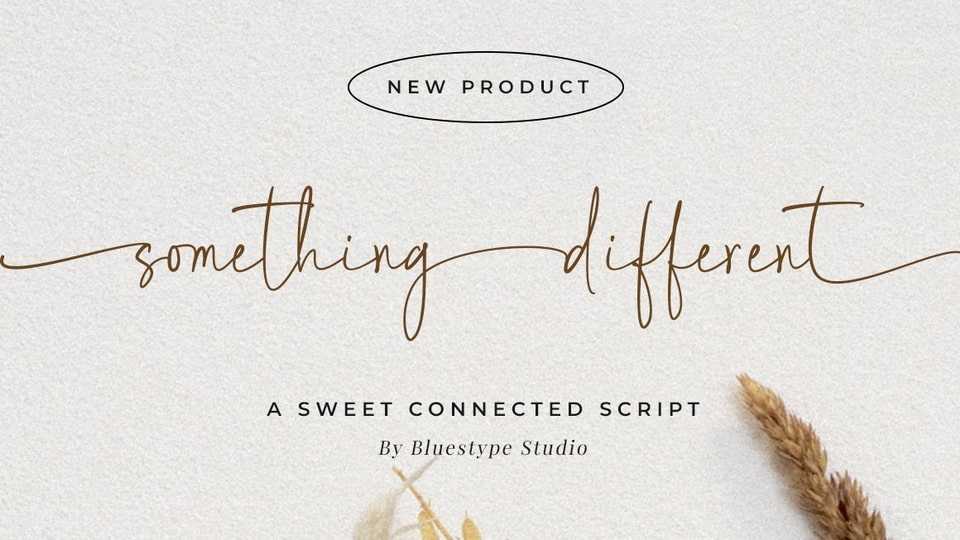
Download Something Different font, a stunning handwritten typeface with a beauty twist, light and elegant script, is the ideal typeface touch to any design project.